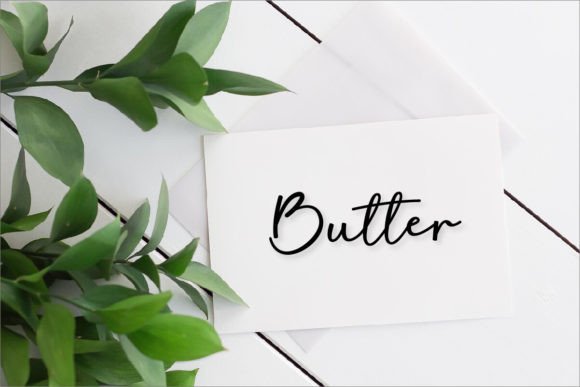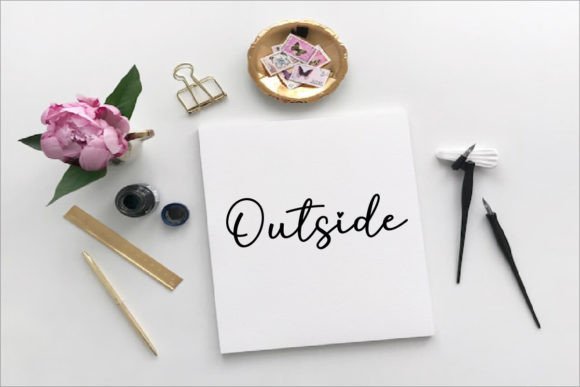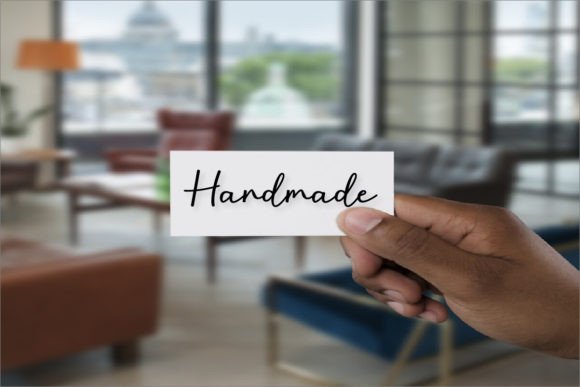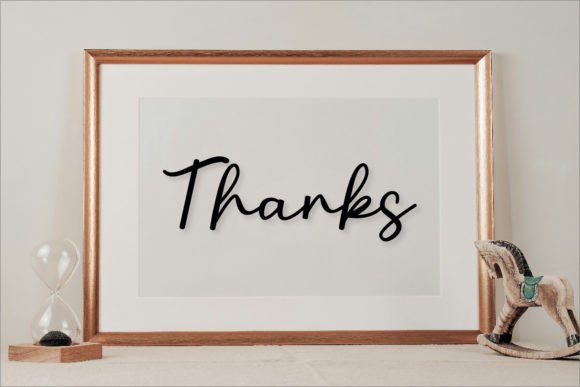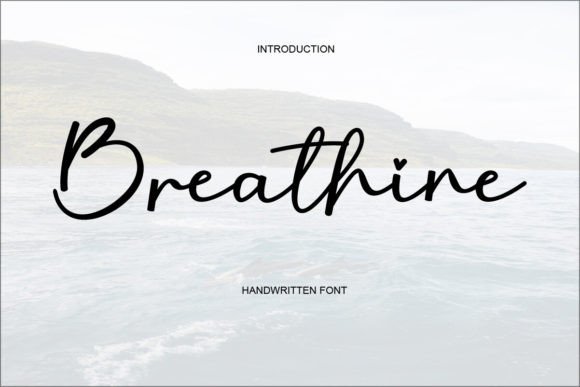
Discover the Elegance of Breathine Font: Elevate Your Designs with Timeless Beauty
In the world of typography, few fonts manage to capture the essence of elegance and timelessness as effectively as Breathine. This delicate font has been making waves among designers and crafters alike, and for good reason. Its beautiful, well-balanced characters make it an incredibly versatile choice, capable of complementing a wide range of design aesthetics. In this article, we’ll dive into the unique qualities of Breathine font, explore its applications, and discuss how it can breathe life into your most creative projects.
The Unique Charm of Breathine Font
Breathine font stands out in the crowded world of typography due to its unique blend of delicacy and elegance. Each character is carefully crafted to exude a sense of refinement and sophistication, making it an ideal choice for projects that demand a high level of aesthetic appeal. Whether you’re working on a branding project, a website design, or crafting beautiful stationery, Breathine’s timeless beauty ensures that your work will stand out.
One of the key advantages of Breathine font is its remarkable versatility. Its well-balanced characters and elegant lines allow it to seamlessly integrate with a wide pool of designs. Whether your project calls for a modern, minimalist look or a more traditional, ornate feel, Breathine adapts beautifully. This adaptability makes it a valuable addition to any designer’s toolkit, as it can be used across various mediums and styles.
Bringing Your Ideas to Life
Adding Breathine font to your design projects can dramatically enhance their visual appeal and emotional impact. Its delicate yet assertive presence can elevate your creative ideas, turning them into stunning realities. Here are a few ways Breathine can make your projects come alive:
• Enhancing Brand Identity: Use Breathine to create a sophisticated and memorable brand identity. Its elegance can help convey a sense of luxury, quality, and attention to detail.
• Web Design: Incorporate Breathine into your website design to add a touch of refinement and professionalism. Its readability ensures a pleasant user experience, while its aesthetic appeal can set your site apart.
• Stationery and Print Materials: From business cards to wedding invitations, Breathine can add a level of sophistication and charm to your print materials, making them truly unforgettable.
• Packaging Design: For crafters and product designers, Breathine can be used to create eye-catching packaging that stands out on shelves and communicates a brand’s unique personality.
Tips for Using Breathine Font Effectively
• Pair it with Complementary Fonts: While Breathine is beautiful on its own, pairing it with complementary fonts can enhance its appeal. Look for fonts that contrast with Breathine’s elegance to create visual interest.
• Play with Sizes and Weights: Experimenting with different sizes and weights of Breathine can add depth and hierarchy to your designs, making them more engaging.
• Consider Your Color Scheme: The beauty of Breathine can be further accentuated by choosing a color scheme that complements its elegance. Soft pastels, rich jewel tones, or classic black and white can all work beautifully.
Breathine font is more than just a typeface; it’s a design element that can elevate your projects with its delicate, elegant, and timeless beauty. Its versatility and wide range of applications make it an invaluable resource for designers and crafters looking to add a touch of sophistication to their work. By incorporating Breathine into your designs, you’re not just choosing a font; you’re embracing a style that will make your creative ideas shine. So, why wait? Discover the elegance of Breathine font today and watch your designs come alive with timeless beauty.